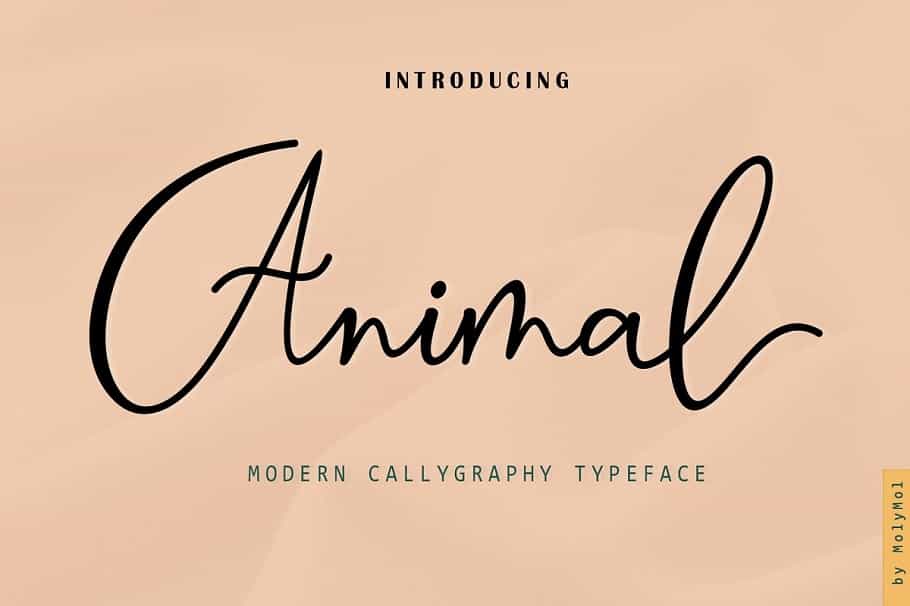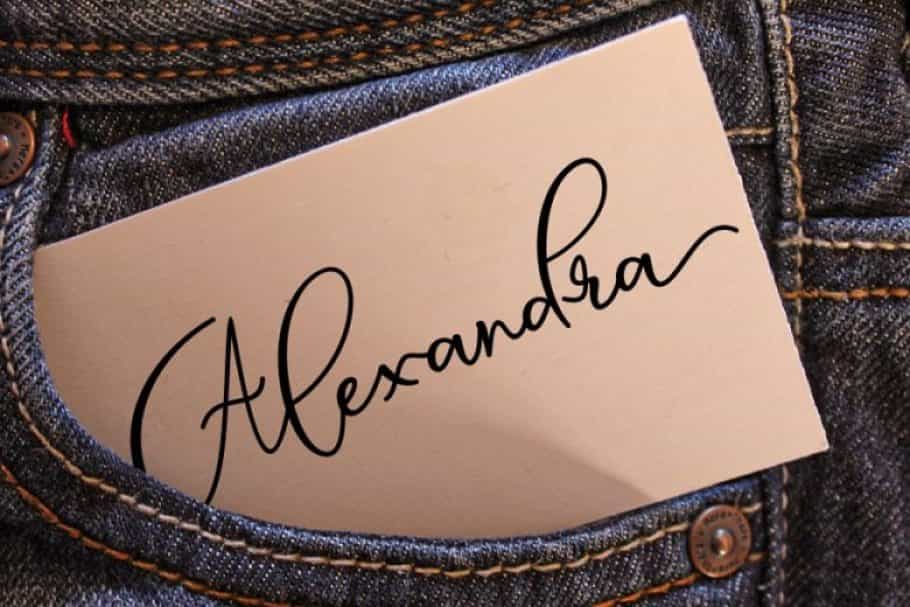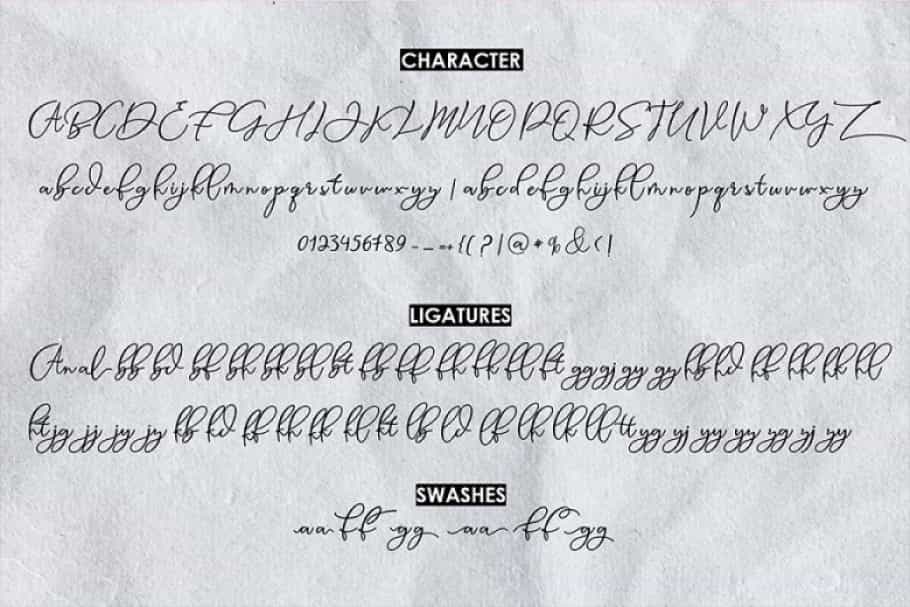
Animal is a modern script font for calligraphy and is designed with the aim to deliver stunning text with the elegance. Due to the modern script style this font can be used for virtually any assignment you have in mind; it could be an invitation, a greeting card, a poster, a name card, a quote for a blog, a branding logo and many more!